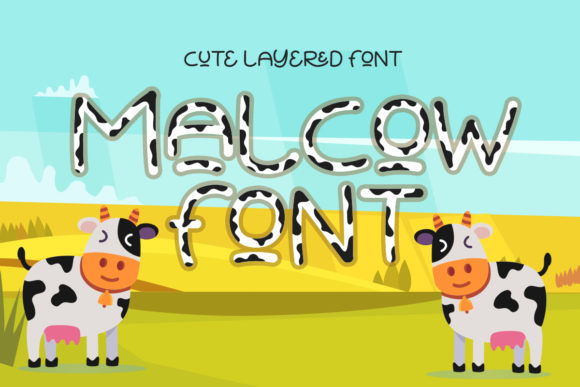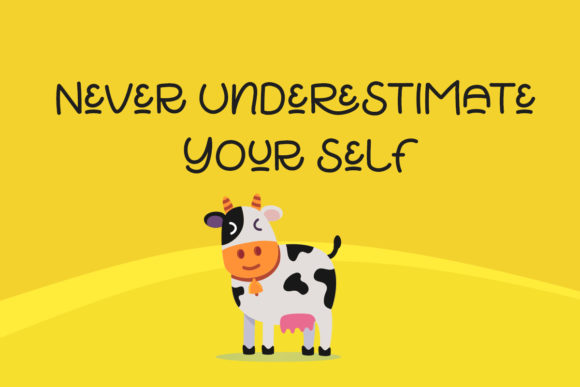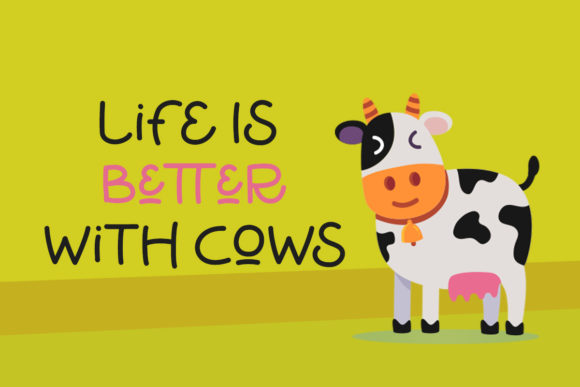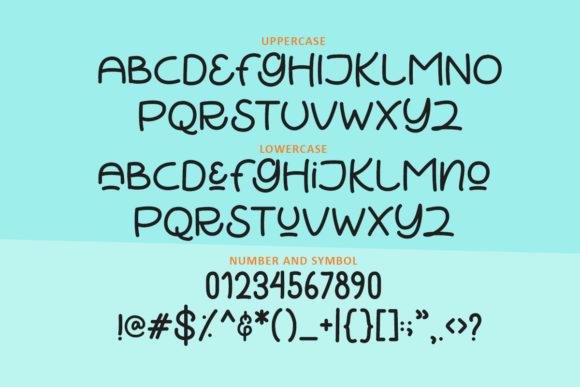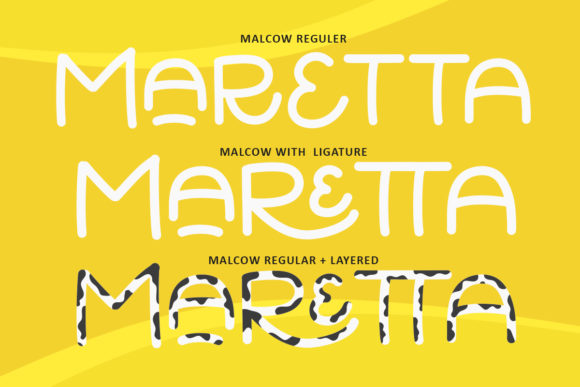
Malcow Font
About Malcow Font
Malcow embodies fun, quirkiness and authenticity. This enchanting handwritten font will turn any creative idea into a true standout.